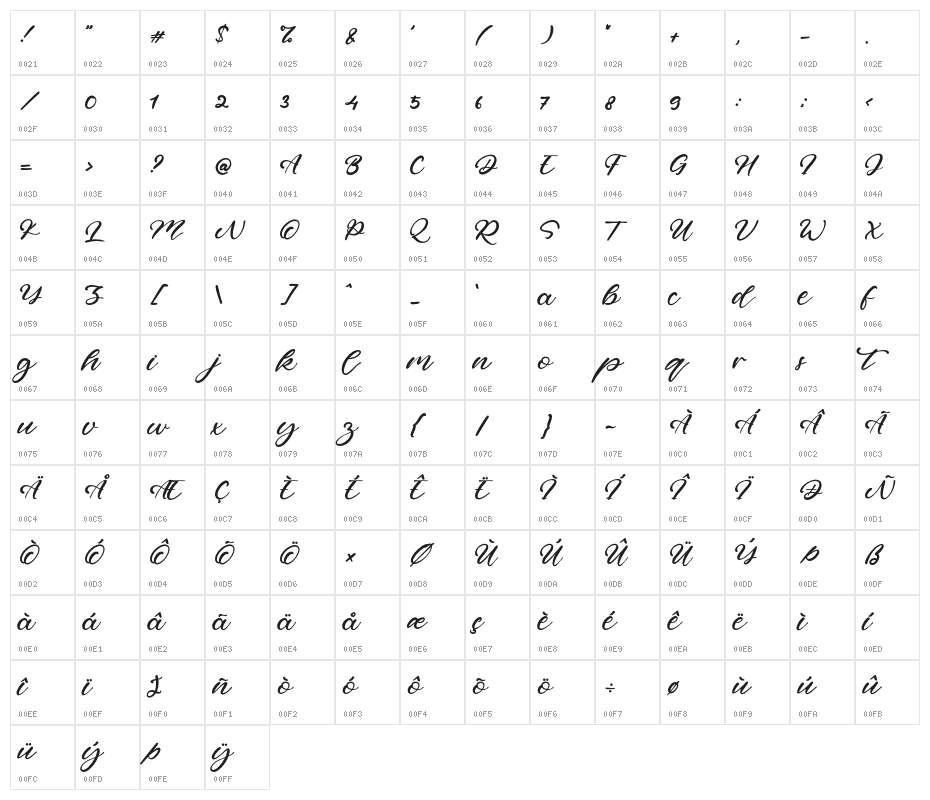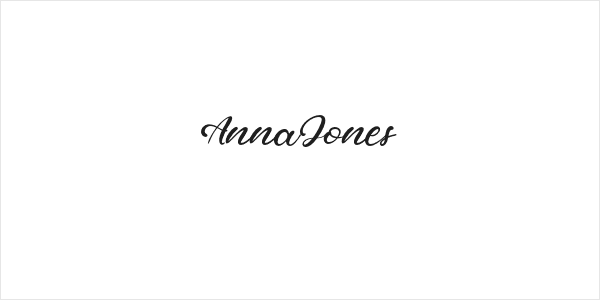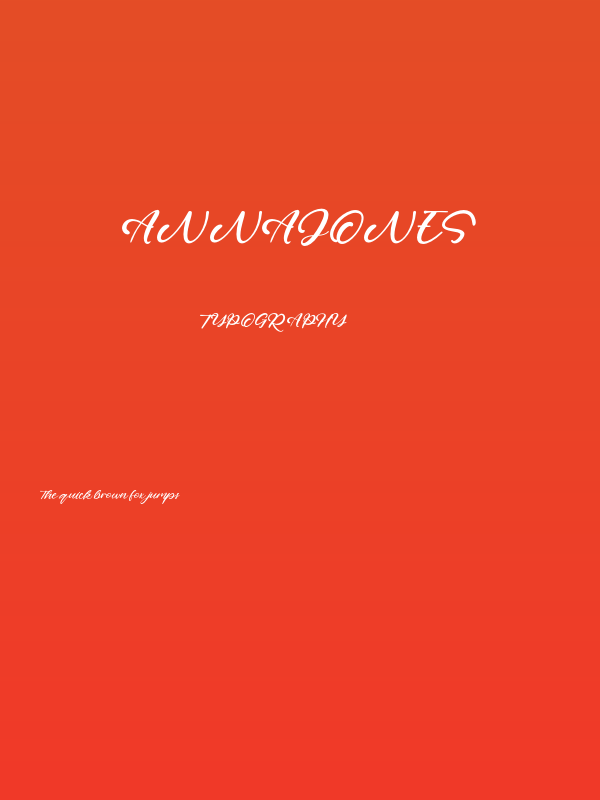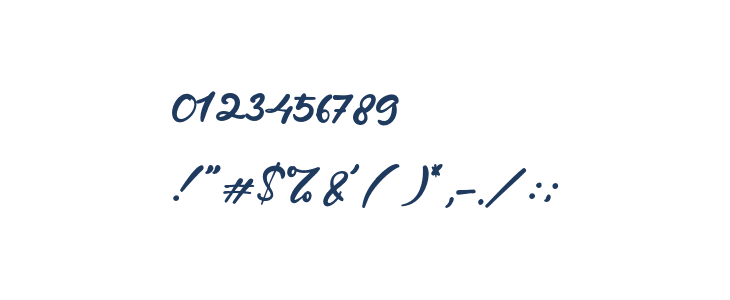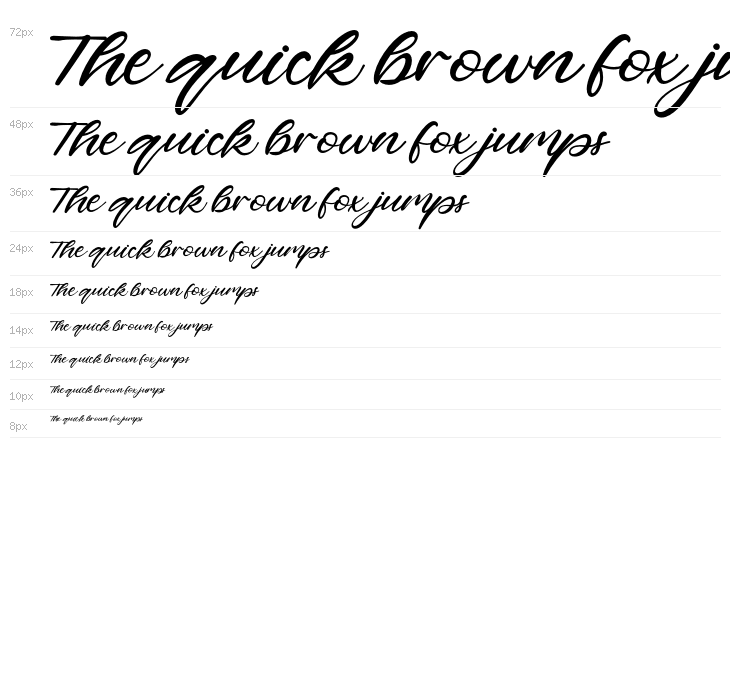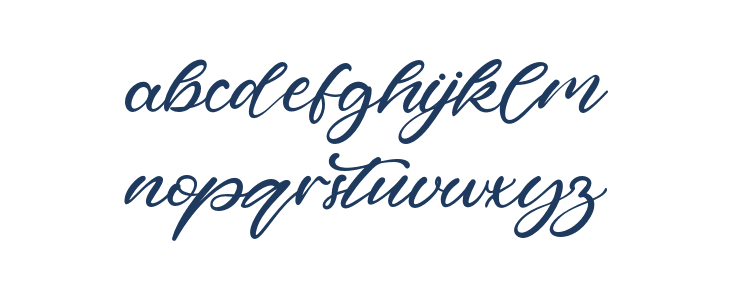
AnnaJones Font
AnnaJones Description
This font exudes elegance and sophistication with its fluid, cursive style. The characters are intricately designed, featuring smooth, flowing lines that mimic the natural movement of handwriting. The uppercase letters are bold and prominent, while the lowercase letters maintain a graceful continuity. Numbers and special characters are crafted with the same attention to detail, ensuring a cohesive look throughout. The overall appearance is both classic and modern, making it versatile for various design needs.
| Overall Style | Elegant, Classic |
| Proposed Projects | Ideal for wedding invitations, elegant branding, personal signatures, and luxury product packaging. |